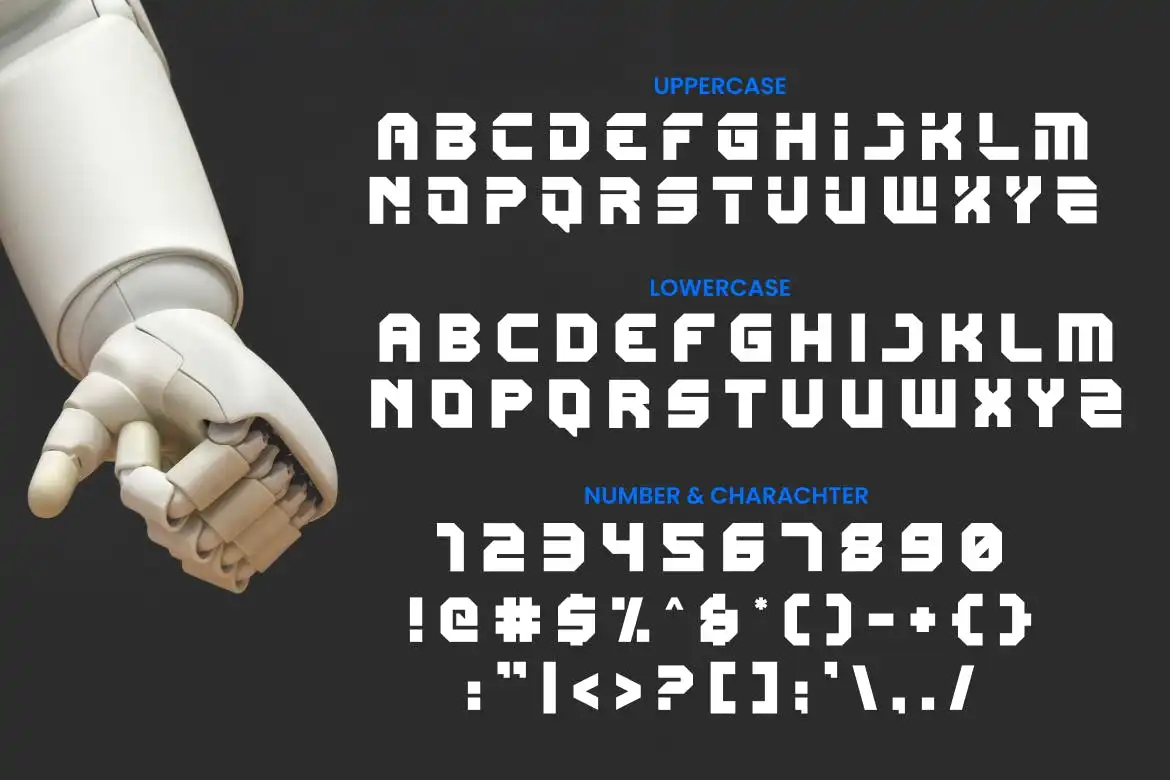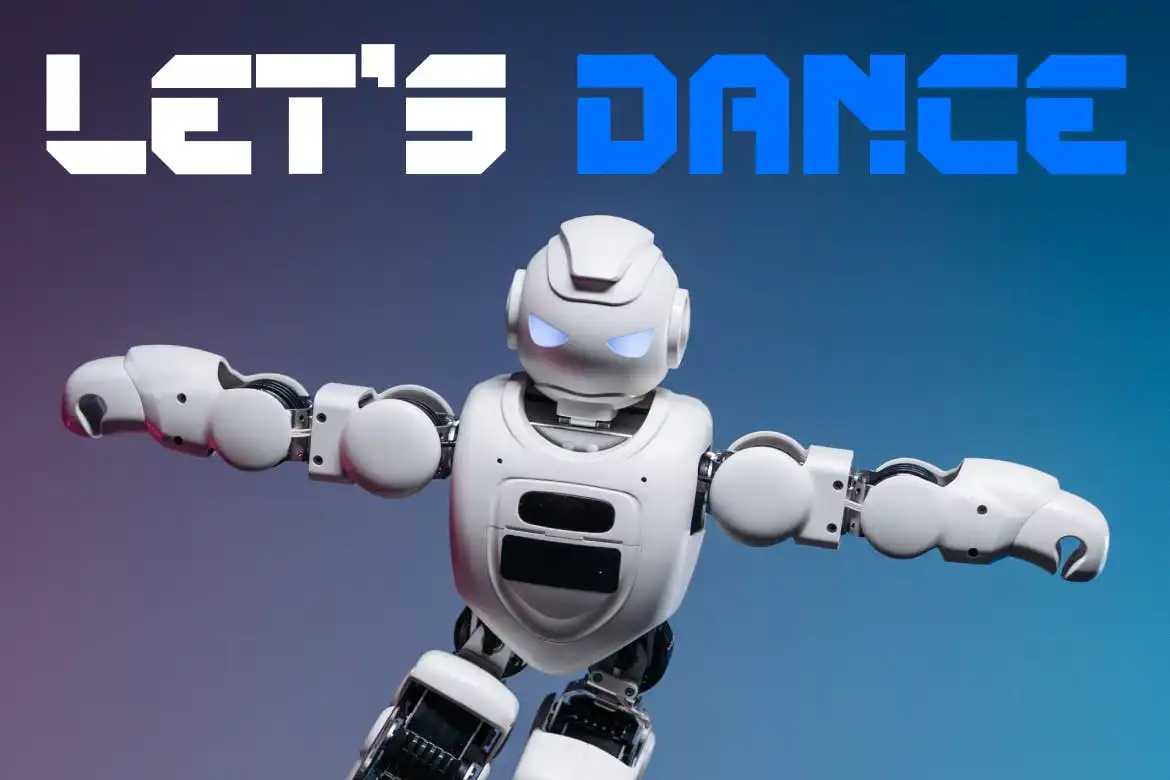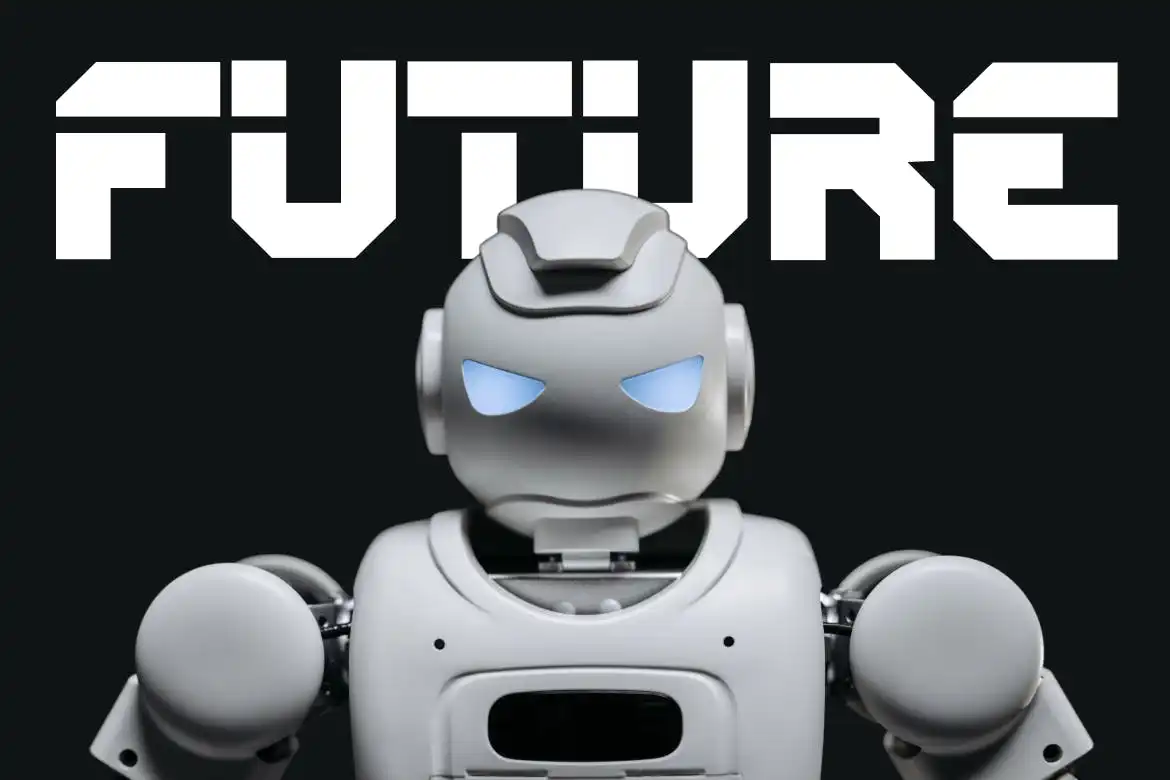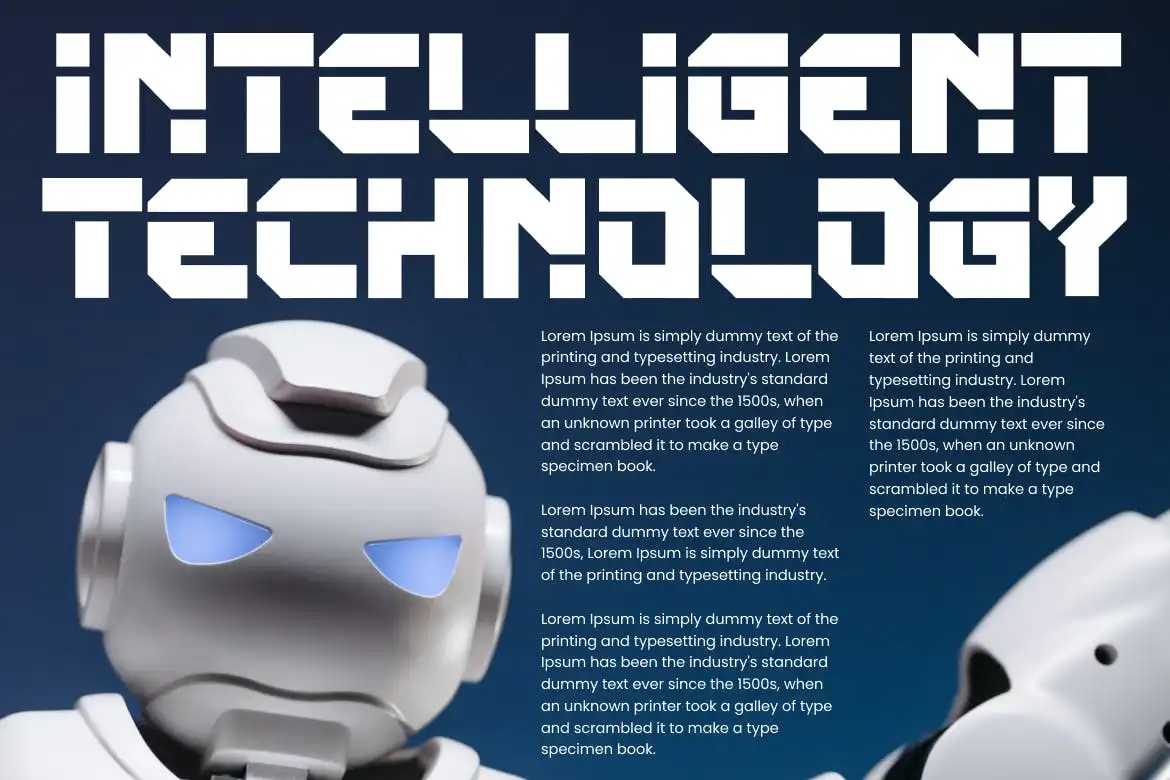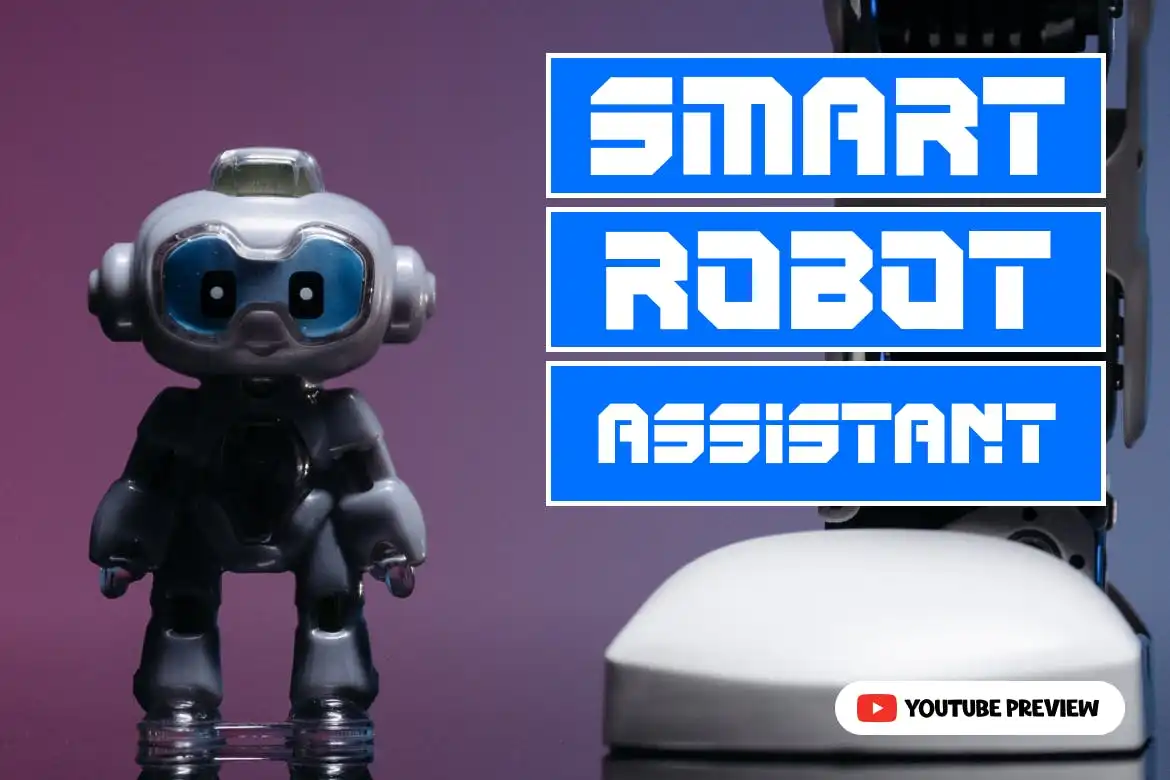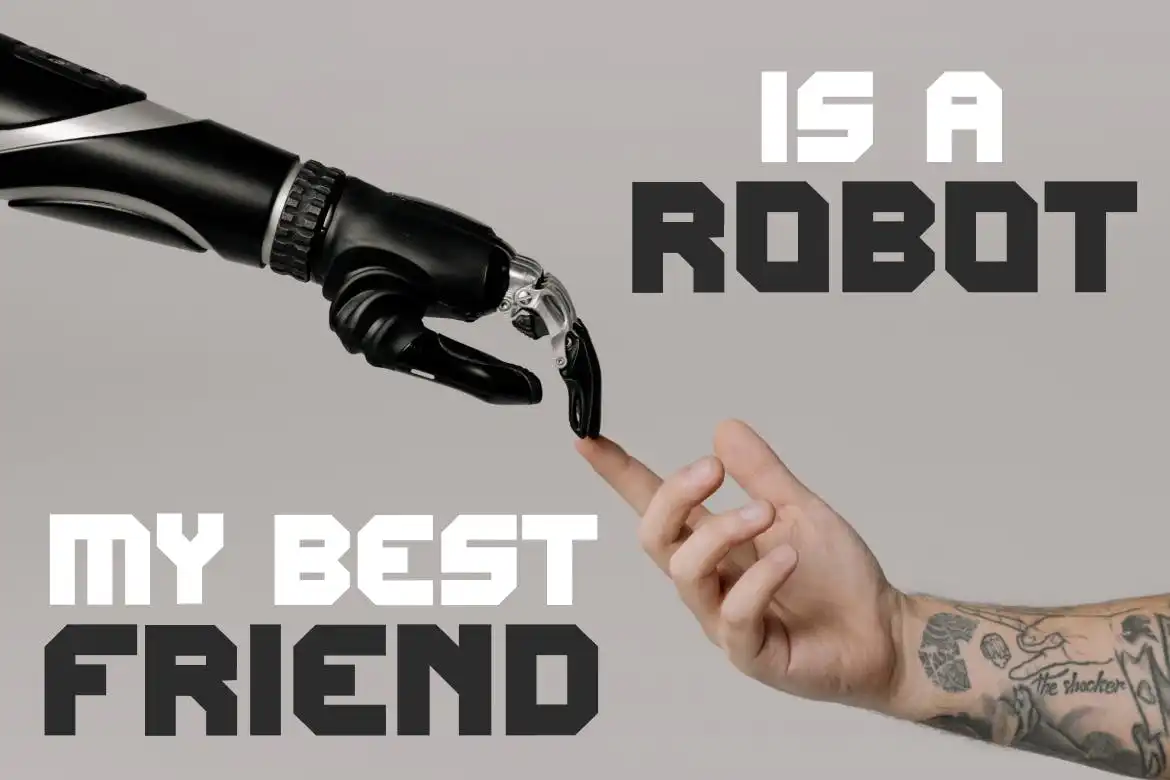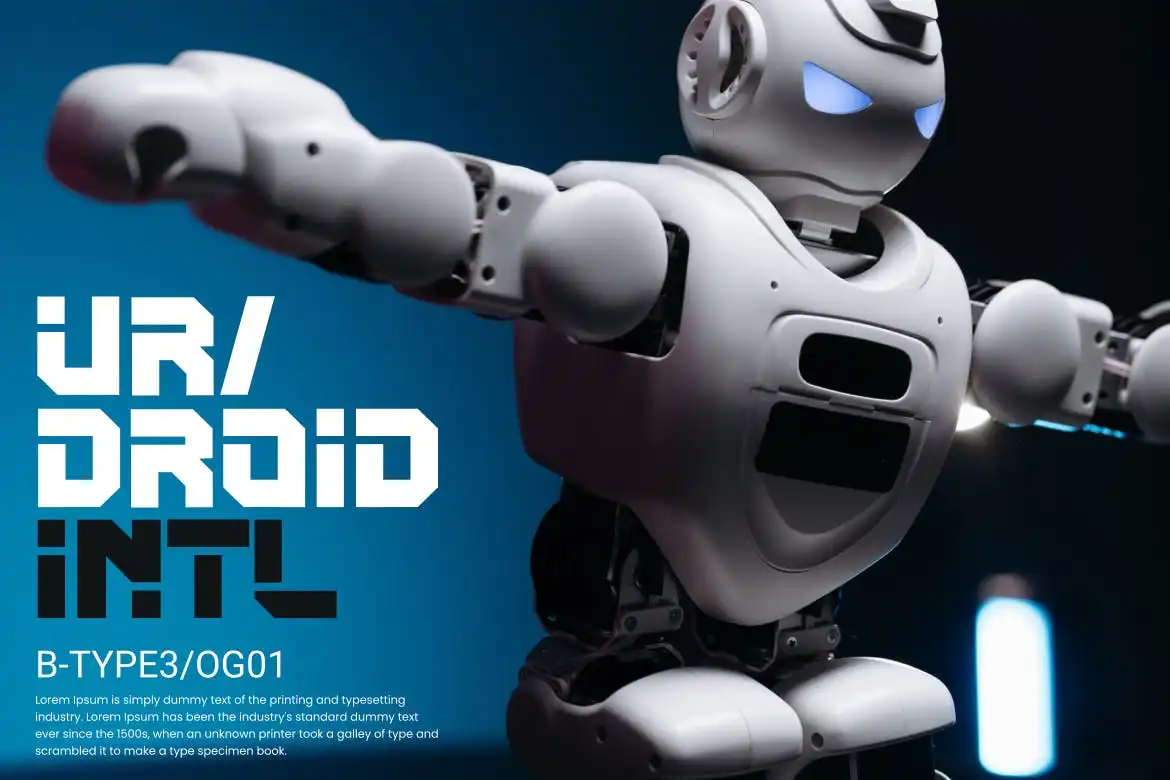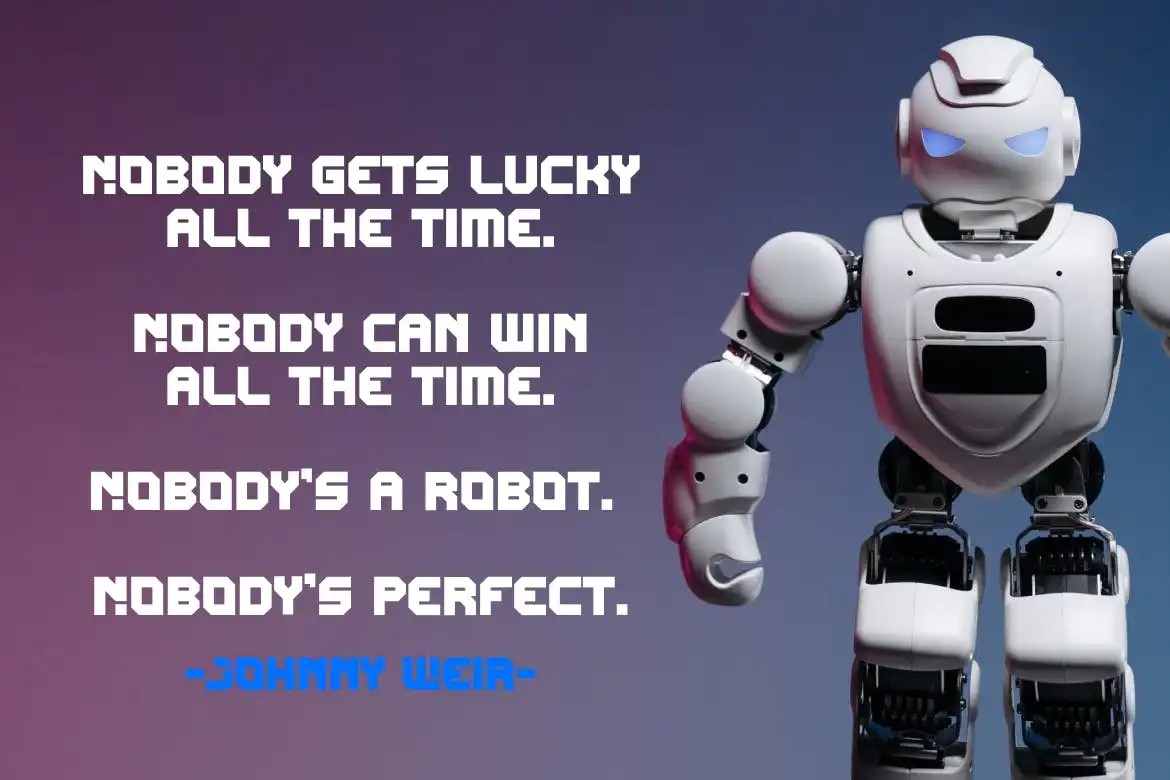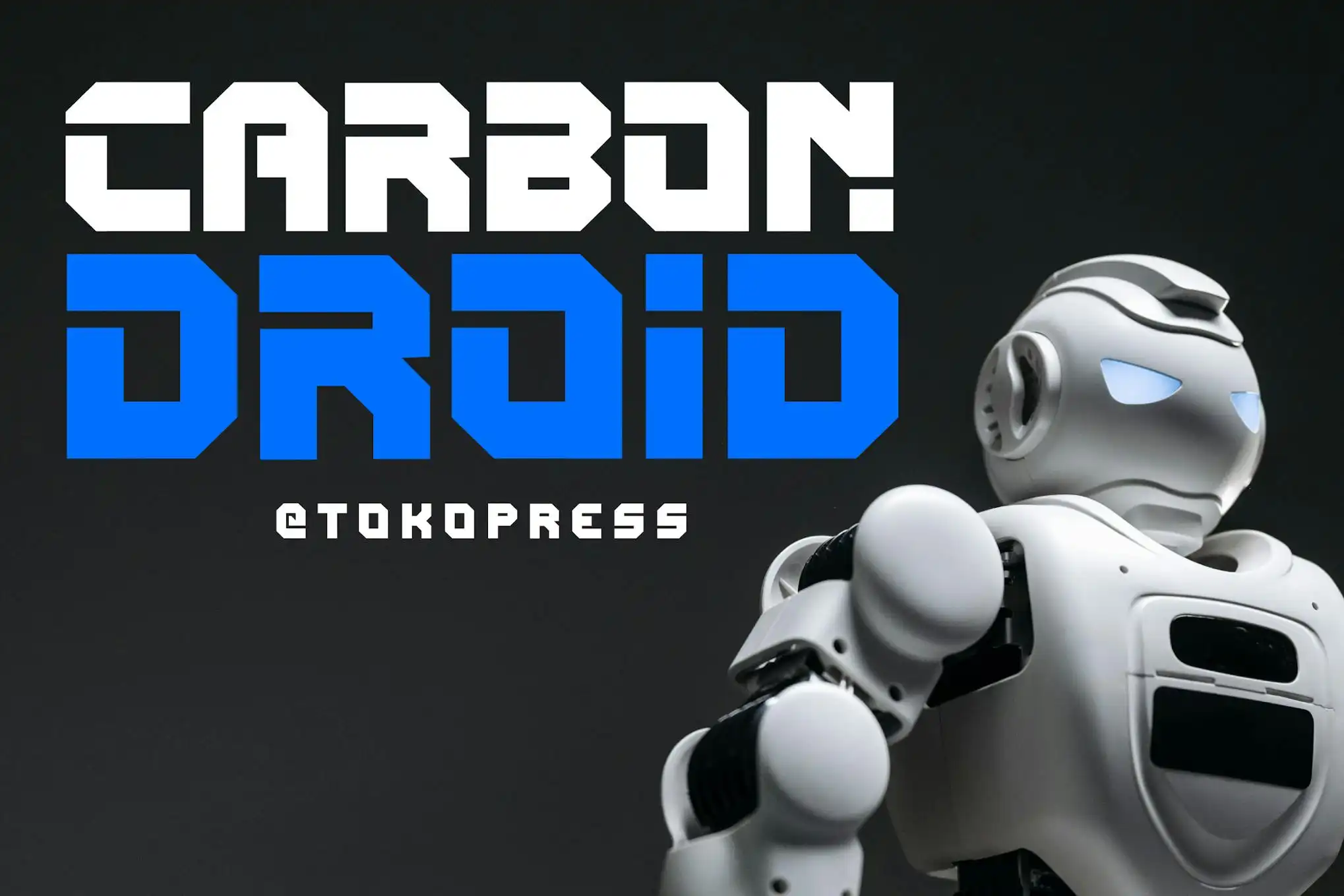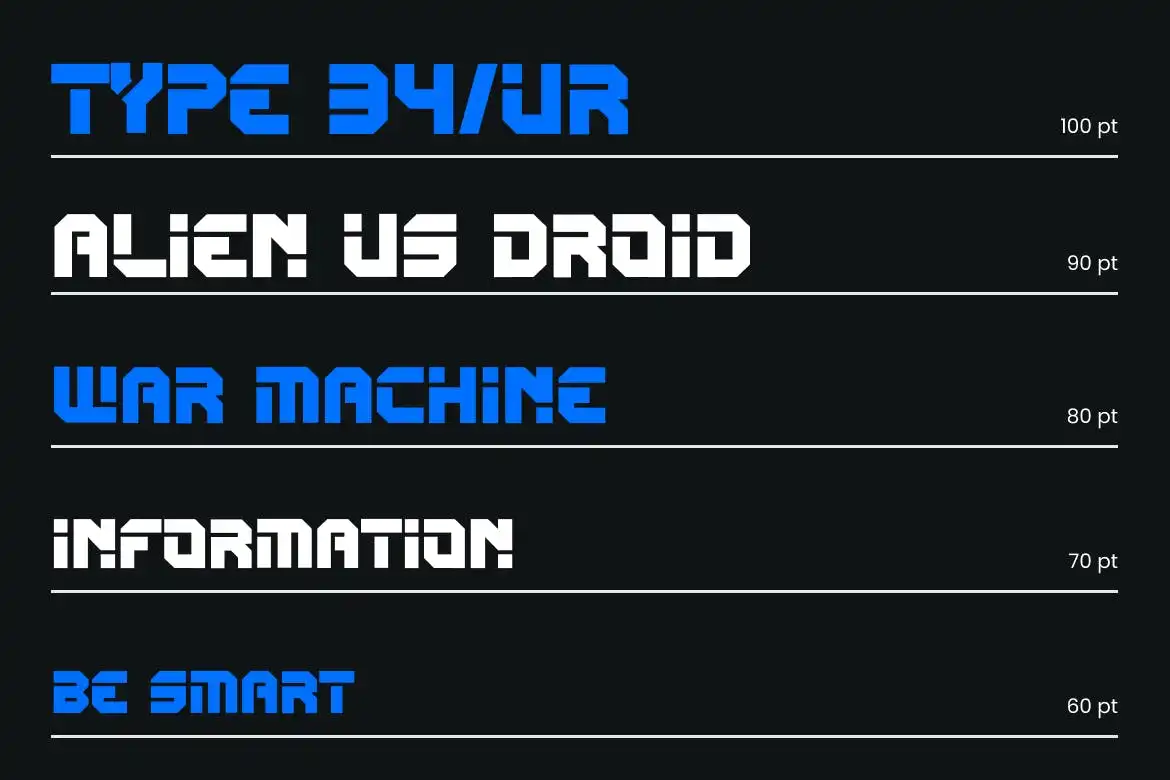
CARBON DROID – Techno Font
Introducing CARBON DROID, a futuristic modular techno typeface designed specifically for digital interfaces and sci-fi branding. This font combines chunky geometric forms with square terminals and precise spacing, delivering a strong, modern vibe that resonates with tech enthusiasts.
CARBON DROID is perfect for projects that demand a powerful digital tone. Its high-impact structure reflects advanced engineering, while its blocky silhouette adds a distinctive mechanical personality. Whether you’re working on a robotics brand, a space-themed event, or an AI-driven platform, this font embodies the essence of contemporary machine aesthetics.
- ✅ Futuristic Form → Inspired by robotics and modular engineering systems, ideal for tech-focused designs.
- ✅ Square Strokes → Features sharp spacing and minimal curves for a clean, modern look.
- ✅ Tech-Driven Versatility → Excellent for UI/UX dashboards, smart devices, and app splash screens.
- ✅ Attention-Grabbing Design → Perfect for packaging, headlines, posters, and title screens.
- ✅ Structured Clarity → Highly legible at various sizes, optimized for a bold tech presence.
- ✅ Visual Compatibility → Pairs well with sans-serif body text or neon/glow effects for added impact.
Why Choose This Product
CARBON DROID stands out in the crowded world of typefaces with its unique blend of rigidity and robotic flair. It’s the go-to choice for anyone looking to convey intelligence and control in their visual messaging. Trusted by designers for gaming dashboards, robot toy packaging, and sci-fi movie posters, CARBON DROID electrifies your designs with cyber-age energy, making it a must-have for your creative toolkit.
- AI Startups
- Gaming Brands
- Robot-Themed Campaigns
- Sci-Fi Movie Posters
- Tech Reviews
To get the most out of CARBON DROID, incorporate it into your digital designs, marketing materials, and branding efforts. Experiment with pairing it with complementary sans-serif fonts or neon effects to enhance its futuristic appeal.